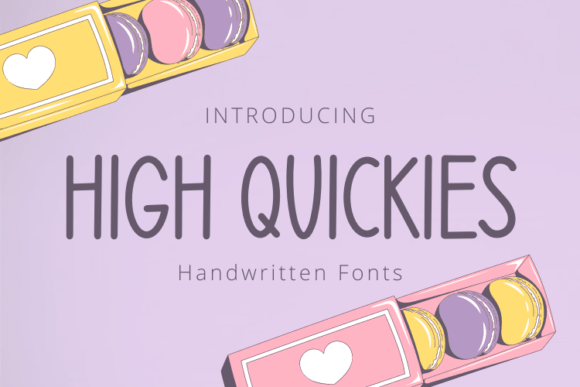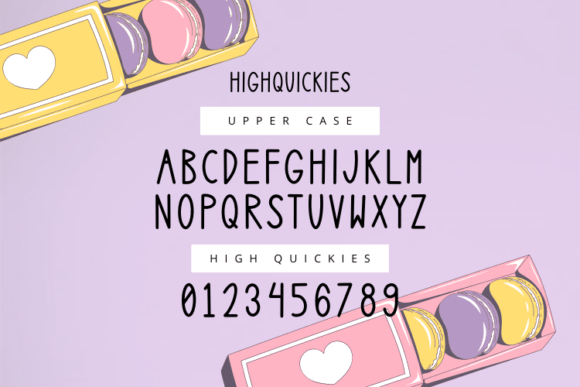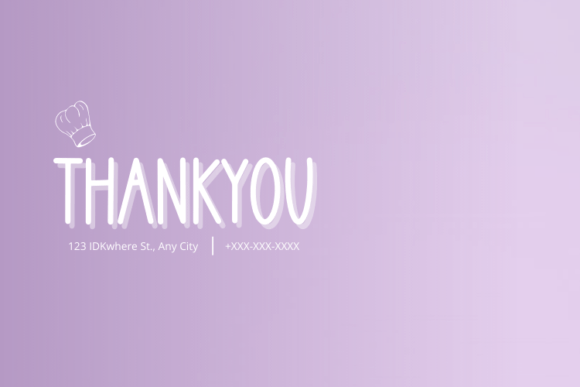
High Quickies Font
A Fun and Quirky Handwritten Script
High Quickies is a playful handwritten font designed to bring joy and personality to your creative projects. Each letter features smooth, quirky shapes that feel relaxed and approachable. The friendly style makes this font perfect for designs that need to feel fresh, unique, and a little bit fun.
Whether you’re creating personal crafts or professional branding, High Quickies helps your words stand out in the most delightful way.
High Quickies is a versatile font that adapts effortlessly to a variety of uses. It’s ideal for greeting cards, thank-you notes, and invitations. The casual style makes every message feel warm and genuine.
Use High Quickies for logos, business cards, and product packaging. The handwritten look adds authenticity and personality to your brand.
This font is also perfect for t-shirt designs, stickers, and custom merchandise. The playful shapes make your products feel creative and unique.
High Quickies is great for social media graphics, blog headers, and Pinterest pins. No matter where you use it, the font delivers a friendly, engaging look that captures attention.
The font includes uppercase and lowercase letters, numbers, and punctuation marks. Ligatures are included so your text flows naturally and looks cohesive.
Clear, Friendly, and Easy to Read
Even with its quirky style, High Quickies remains clear and legible at any size. Balanced spacing between letters ensures your text looks tidy and professional, whether you use it for big headlines or small captions.
Many designers pair High Quickies with a clean sans-serif font to create visual contrast. Use High Quickies for titles and the sans-serif for supporting text. This combination guides the reader’s eye and keeps layouts organized and modern.
To showcase High Quickies’ playful personality, use bright backgrounds and cheerful color palettes. Shades like pastel pink, mint green, and soft yellow help the friendly shapes pop.
When designing crafts or social media content, consider adding hand-drawn icons or doodles to match the font’s style. For product packaging and promotional materials, keep layouts clean so the script remains the main focus.
Think about the mood you want to create. High Quickies is perfect for designs that should feel happy, creative, and approachable.
High Quickies is more than just a handwritten font. It’s a creative tool that transforms simple text into something memorable and full of personality. Its smooth curves and quirky details bring warmth to any project.